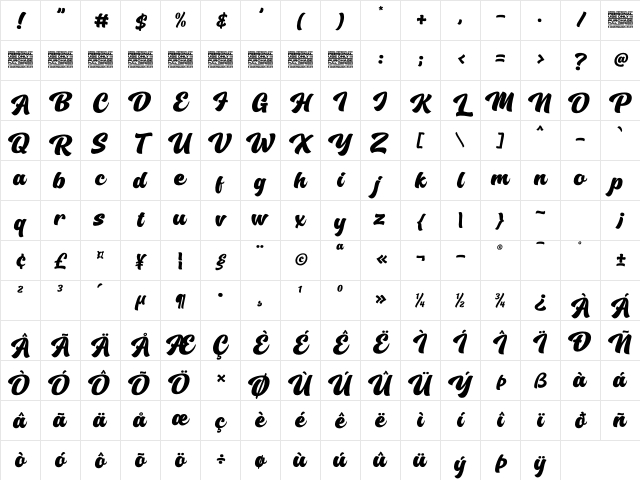
Kings Hutand Personal Use Only Regular Free Font
Kings Hutand Personal Use Only Regular
Foundry: Multype Studio
Designer: Mulia Yanto
Design Context for Kings Hutand Personal Use Only
Kings Hutand Personal Use Only is a composed and adaptable typeface that performs quietly and consistently across a wide range of design contexts.